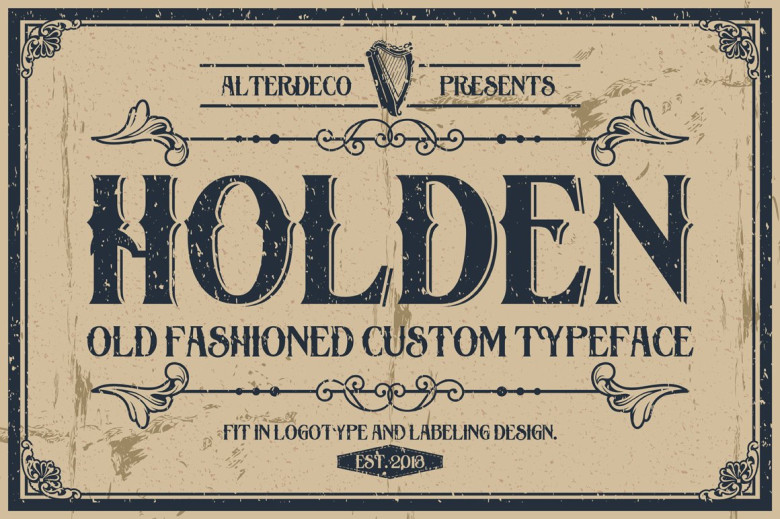
Holden Typeface
Starting a new day I would like to introduce you to a classic typeface. Introducing Holden Typeface! Holden typeface is a vintage font, useful to create a vintage apparel design, logotype, and labeling. the uppercase is in shadowed style. available in otf and ttf.